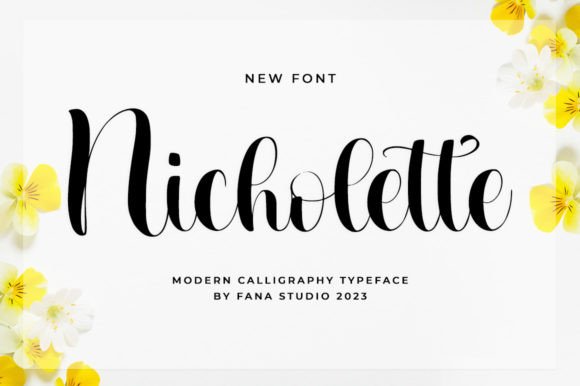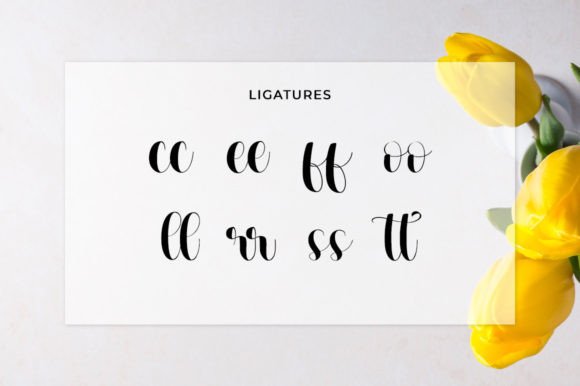
About Nicholette
Nicholette is a beautiful and light handwritten font with a unique feel and a stunning impact. It will add a luxury spark to any design project that you wish to create!